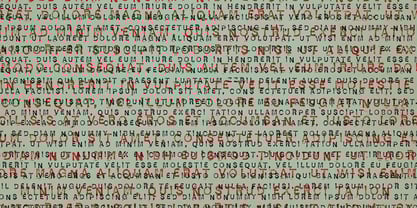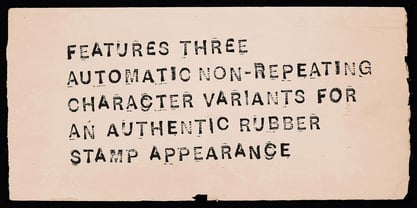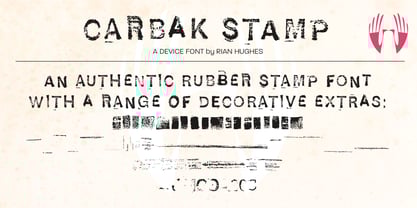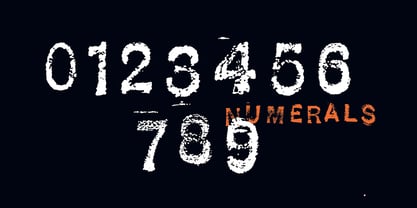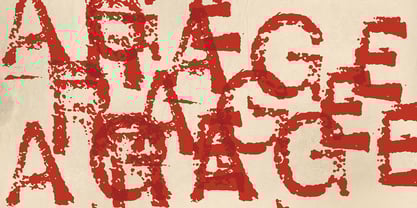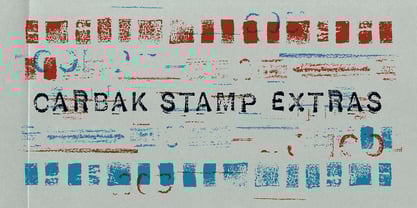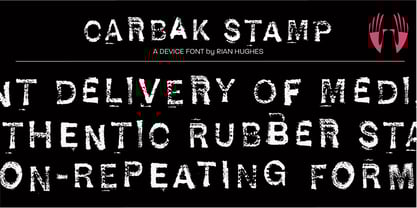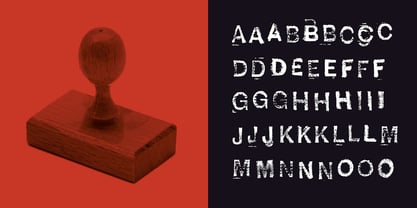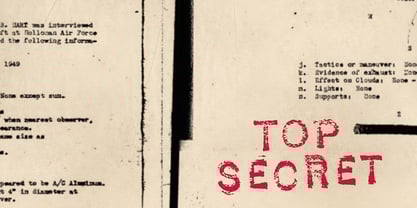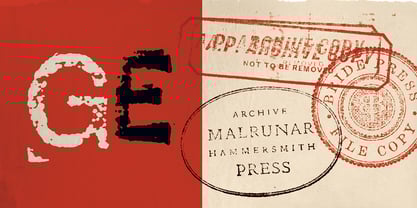
Carbak Stamp
The Carbak Stamp Font Family was designed by Rian Hughes and published by Device. Carbak Stamp contains 2 styles and family package options. More about this family
Carbak Stamp is taken from prints from genuine vintage rubber stamps. It includes three different versions of every letter and number, which cycle automatically to ensure a realistic hand-made effect. It evokes a sense of urgency and authenticity for spy dramas, charities, action movies and special offers.